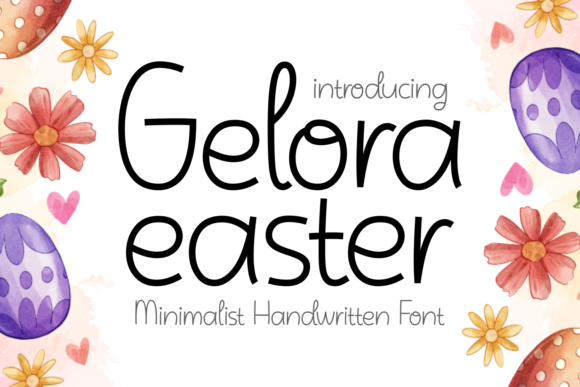
Gelora Easter Font
Indulge in the enchanting world of Gelora Easter, a handcrafted masterpiece that will ignite your creativity and capture the hearts of those you cherish. This whimsical script font, meticulously designed by the talented team at Creative Fabrica Fonts, is a captivating expression of joy and celebration.
Immerse yourself in the flowing curves and delicate strokes that make Gelora Easter a visual symphony. Its charming personality shines through in every letter, evoking a sense of nostalgia and warmth. With its playful yet elegant style, Gelora Easter flawlessly complements any design project, adding a touch of magic to your words.
Unleash your imagination and let Gelora Easter elevate your Easter cards to stunning works of art. Create enchanting invitations that will make your loved ones smile with delight. Transform ordinary quotes into captivating expressions that inspire and uplift. Design posters that will brighten your walls and bring joy to your space.
Gelora Easter is more than just a font; it's a creative catalyst that will unlock your potential. Its versatility extends to nursery room designs, where it can create a whimsical and inviting atmosphere for your little ones. Whether you're designing a personalized gift or crafting a heartfelt letter, Gelora Easter will add a touch of enchantment to every creation.